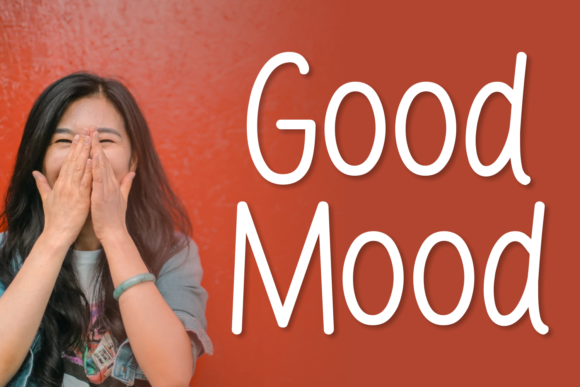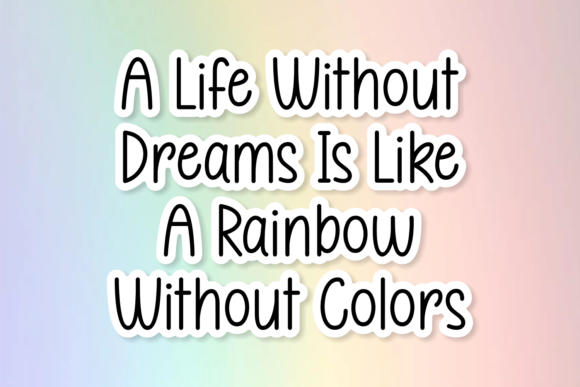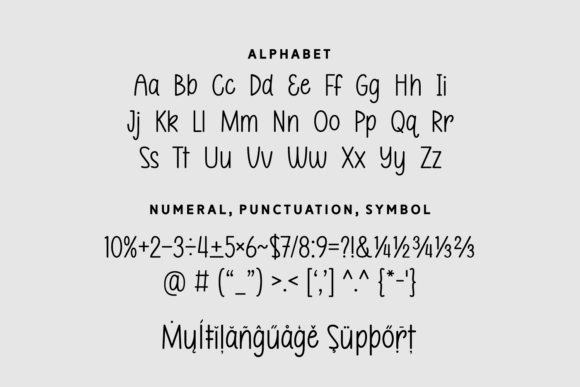
Monday Rainbow Font
About Monday Rainbow Font
Monday Rainbow is a cool, casual and adaptable handwritten font. It can easily be matched to an incredibly large set of projects, so add it to your creative ideas and notice how it makes them stand out!